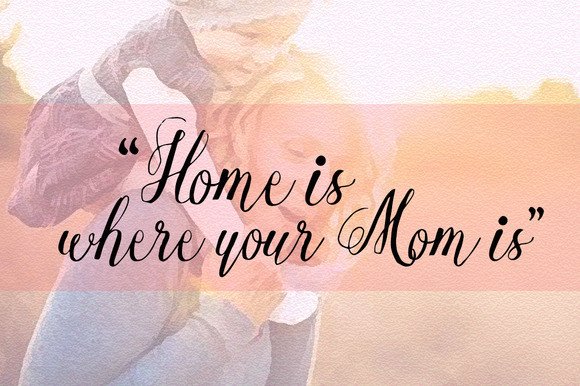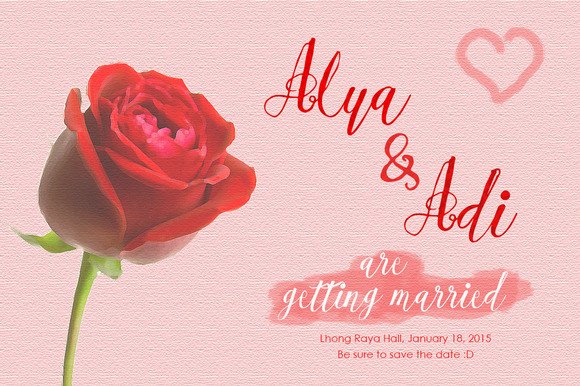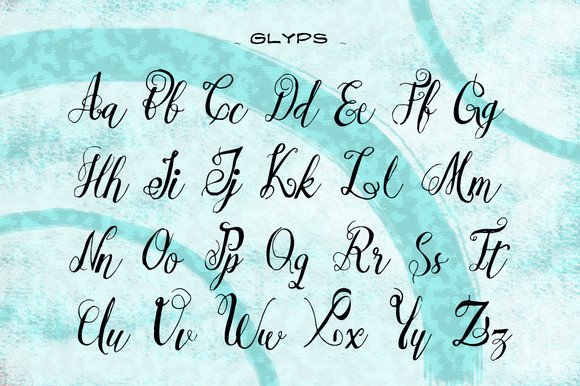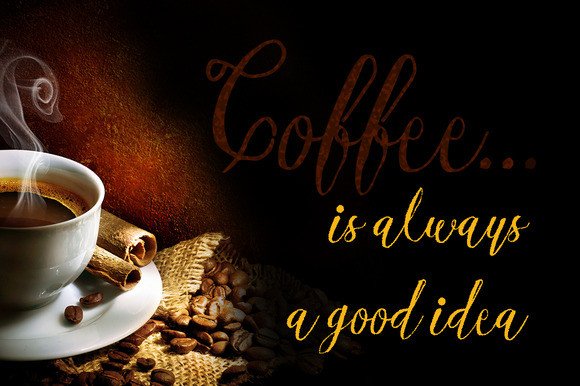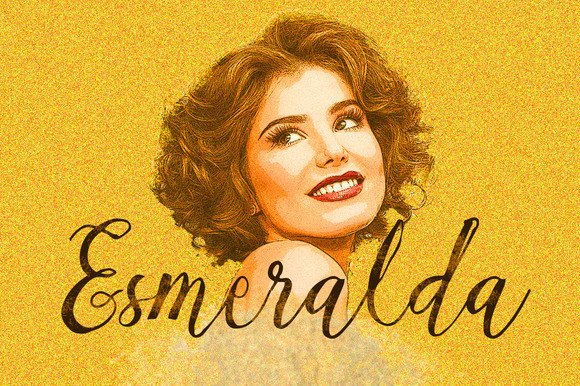
Discover the Beauty of Esmeralda Font: A Romantic and Feminine Script Font
Are you looking for a font that can add a touch of elegance and sophistication to your designs? Look no further than the Esmeralda font. This stunning script font is perfect for crafters and designers who want to give their displays a beautiful and feminine feel. In this article, we’ll take a closer look at the Esmeralda font, its features, and how you can use it to elevate your designs.
What is Esmeralda Font?
Esmeralda is a beautiful script font that is inspired by traditional calligraphy. Its elegant and flowing lines make it perfect for creating romantic and feminine designs. The font is designed to look like it was written with a pen or a brush, giving it a personal and handmade touch. Whether you’re creating wedding invitations, branding materials, or social media graphics, Esmeralda font is sure to make your designs stand out.
Features of Esmeralda Font
So, what makes Esmeralda font so special? Here are some of its key features:
- Romantic and Feminine: Esmeralda font is perfect for creating designs that require a touch of romance and femininity. Its elegant lines and curves make it ideal for wedding invitations, beauty brands, and lifestyle designs.
- Script Style: Esmeralda font is a script font that is inspired by traditional calligraphy. Its flowing lines and connected letters make it perfect for creating beautiful and elegant designs.
- Handwritten Look: The font is designed to look like it was written with a pen or a brush, giving it a personal and handmade touch.
- Easy to Read: Despite its elegant and cursive style, Esmeralda font is easy to read, making it perfect for body text and headlines.
How to Use Esmeralda Font
Esmeralda font is versatile and can be used for a variety of design projects. Here are some ideas on how to use it:
- Wedding Invitations: Esmeralda font is perfect for creating beautiful and elegant wedding invitations. Its romantic and feminine style makes it ideal for wedding designs.
- Branding Materials: Use Esmeralda font to create branding materials such as logos, business cards, and brochures. Its elegant style makes it perfect for beauty brands, lifestyle brands, and fashion brands.
- Social Media Graphics: Esmeralda font can be used to create beautiful and engaging social media graphics. Its elegant style makes it perfect for creating inspirational quotes, motivational messages, and promotional graphics.
- Signage and Displays: Use Esmeralda font to create beautiful signage and displays. Its elegant style makes it perfect for storefronts, restaurants, and events.
Tips for Using Esmeralda Font
Here are some tips for using Esmeralda font:
- Pair it with a Simple Font: Esmeralda font is elegant and cursive, so it’s best to pair it with a simple font to create contrast.
- Use it for Headlines and Titles: Esmeralda font is perfect for headlines and titles. Use it to create beautiful and elegant headings that grab attention.
- Experiment with Colors: Esmeralda font looks beautiful in a variety of colors. Experiment with different colors to find the one that works best for your design.
In conclusion, Esmeralda font is a beautiful and elegant script font that is perfect for designers and crafters who want to add a touch of romance and femininity to their designs. Its flowing lines and connected letters make it perfect for creating beautiful and elegant designs. Whether you’re creating wedding invitations, branding materials, or social media graphics, Esmeralda font is sure to make your designs stand out. So, what are you waiting for? Download Esmeralda font today and start creating beautiful designs!